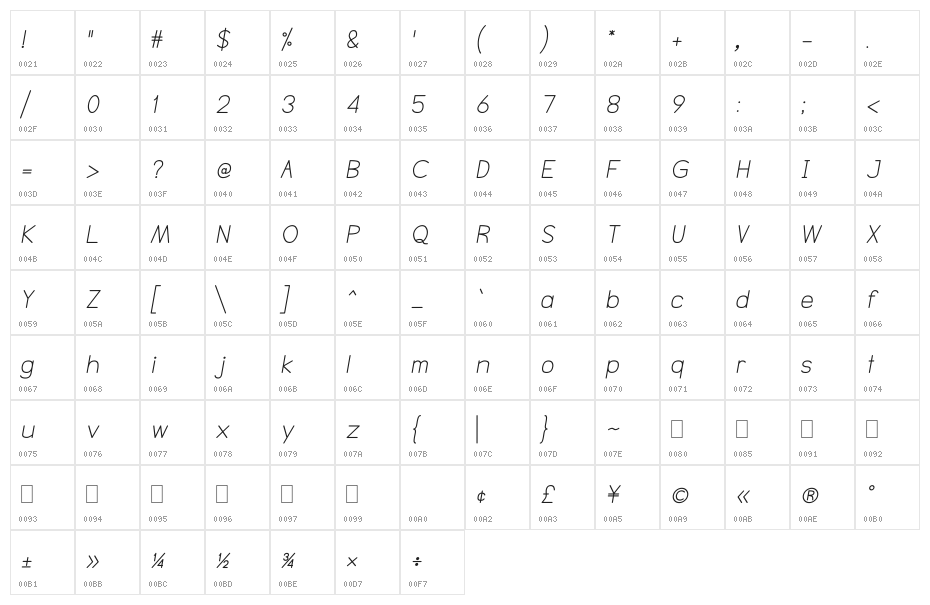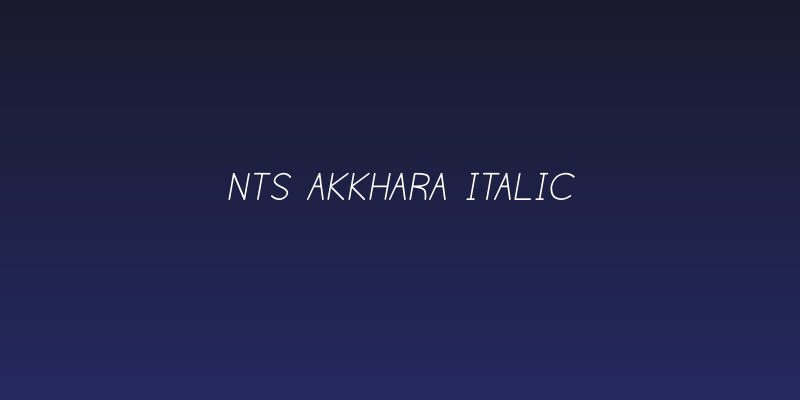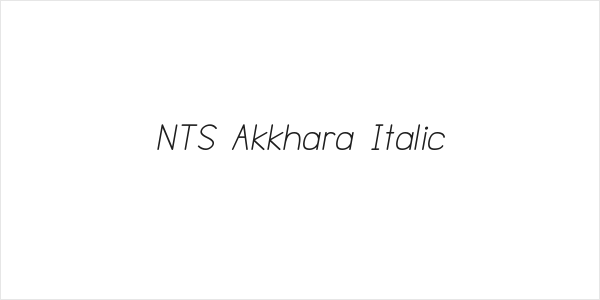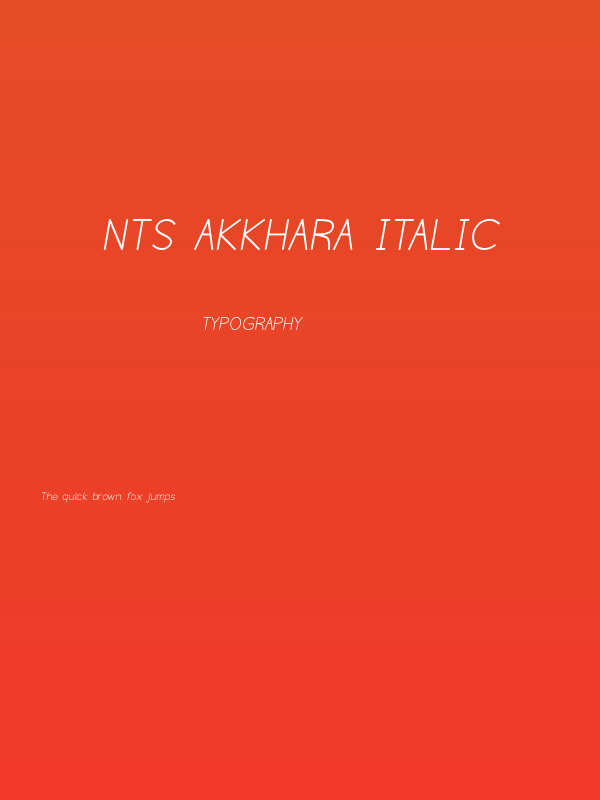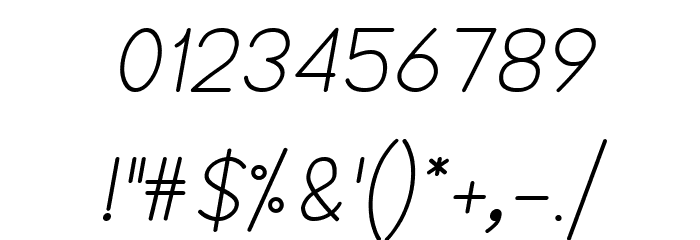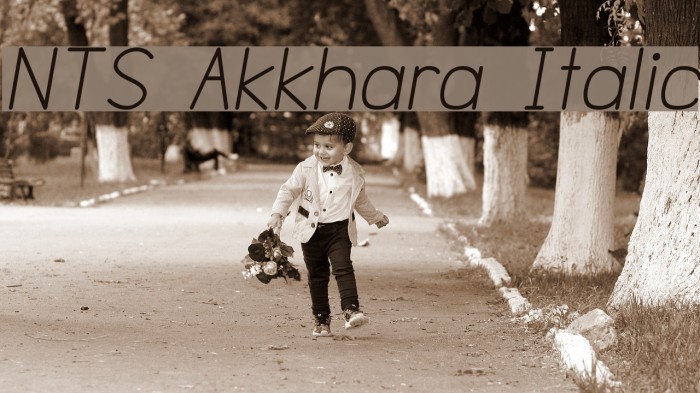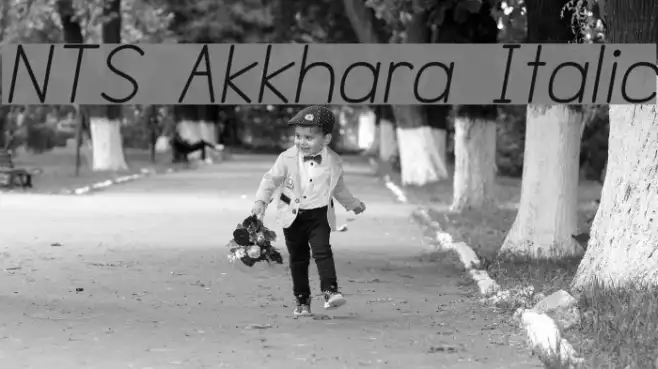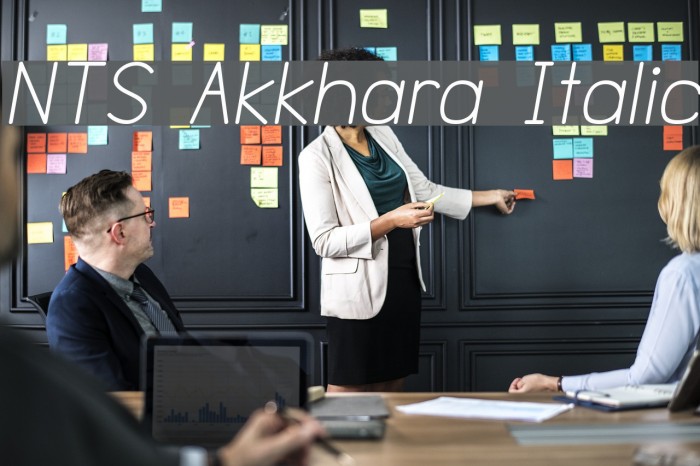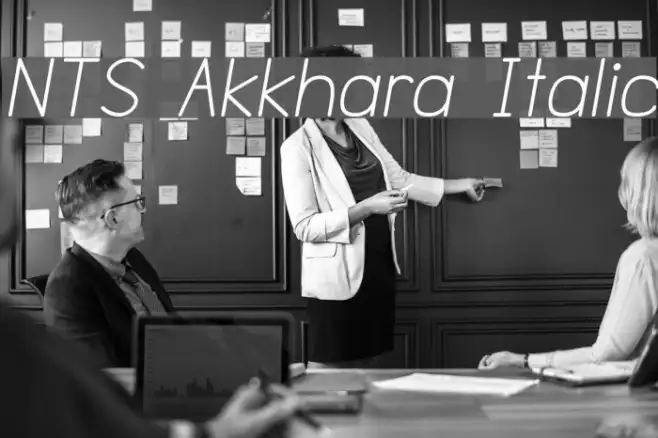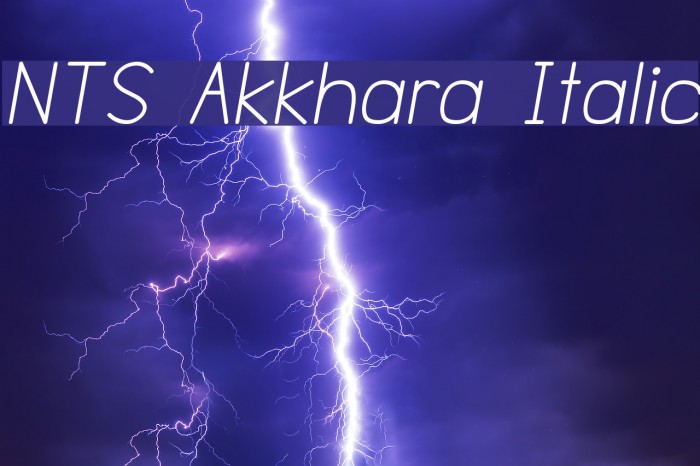
NTS Akkhara Italic Font
NTS Akkhara Italic Description
This font features a sleek and modern italic style with clean lines and a slight slant, giving it a dynamic yet elegant appearance. The characters are uniformly spaced, providing a harmonious flow across text. The uppercase letters are tall and slightly narrow, while the lowercase letters maintain a consistent height, enhancing readability. Numbers are clear and distinct, making them suitable for various applications. The special characters are well-defined, adding versatility to the font's use. Overall, this font exudes a contemporary feel, making it ideal for modern design projects.
| Use Case | Headlines, Body text, Logos |
| Proposed Projects | Ideal for branding, editorial design, digital content, and advertising materials. |